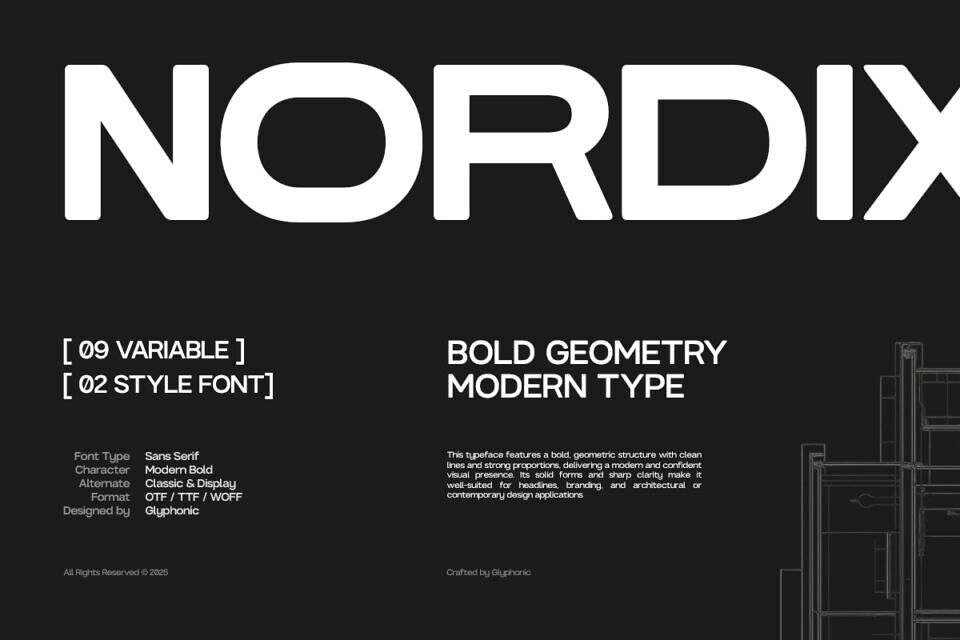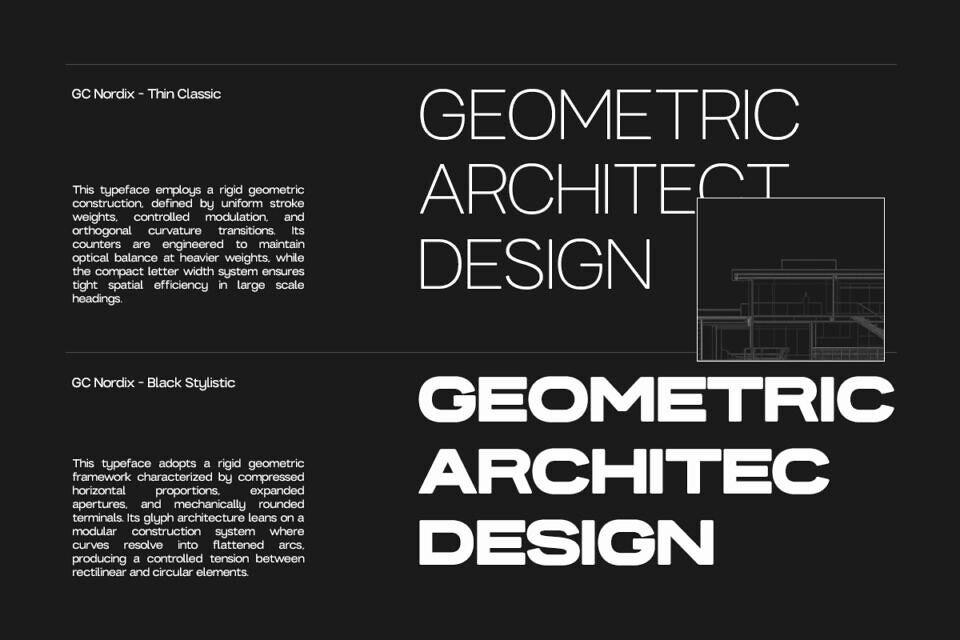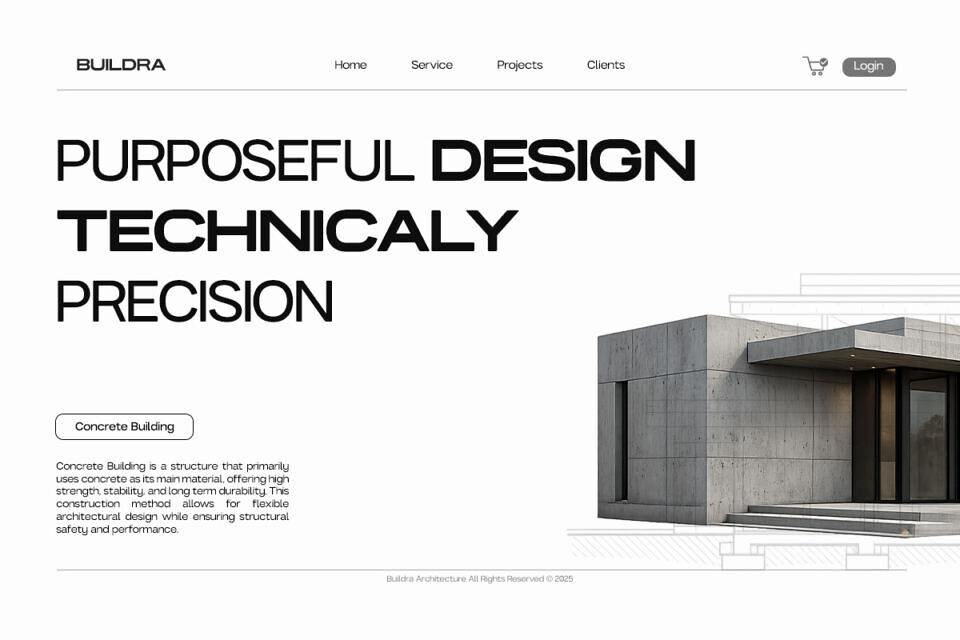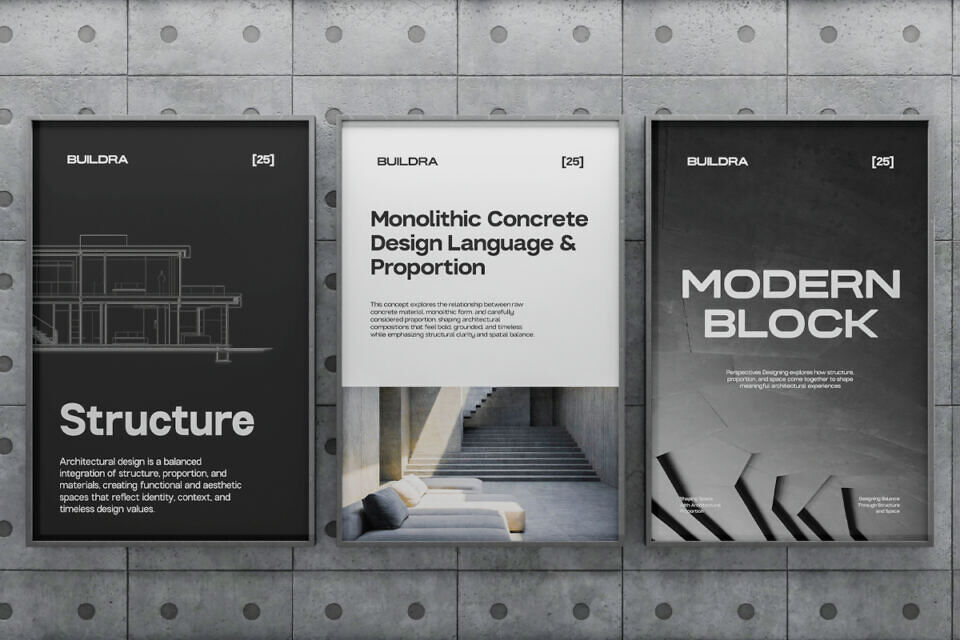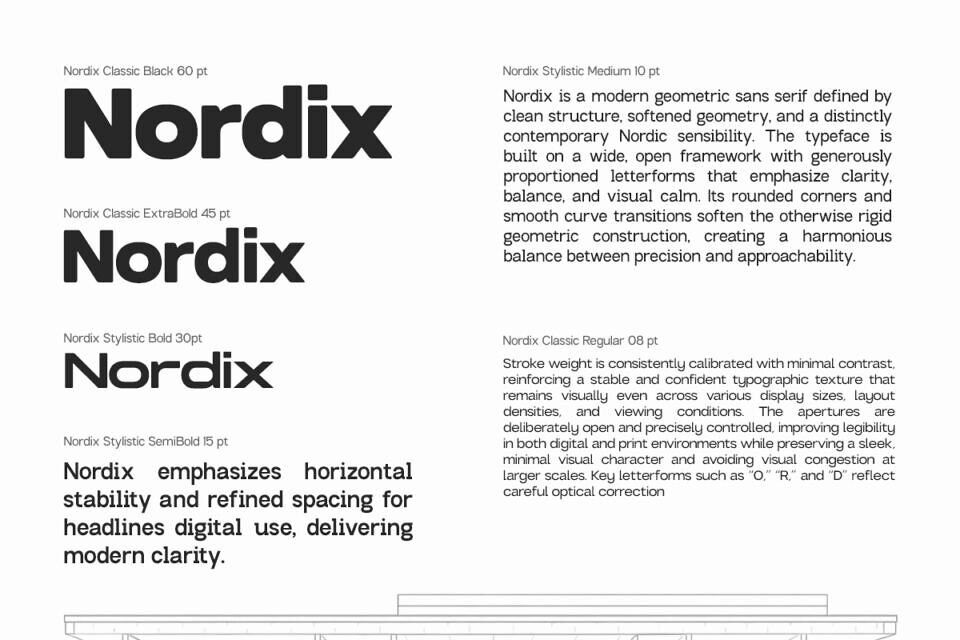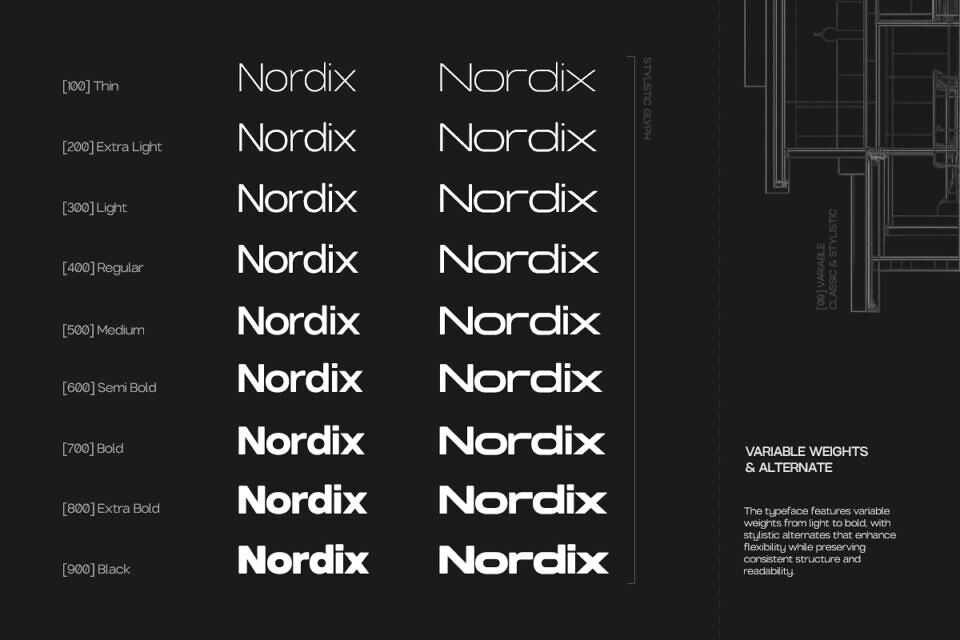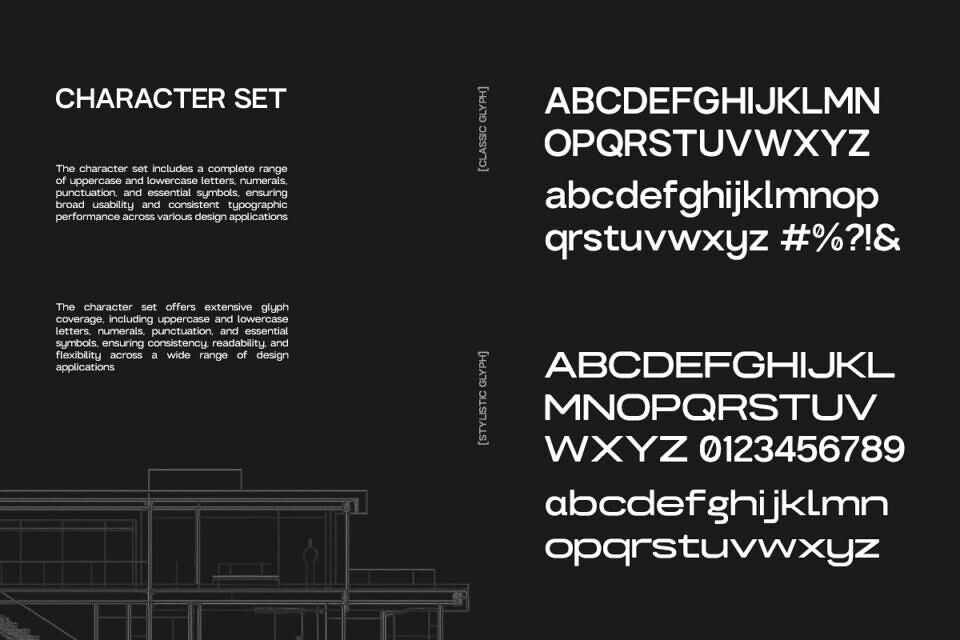
Nordix is a modern sans serif font with a strong geometric base. Its clean design and bold structure make it perfect for contemporary visual communication. With rounded edges and balanced forms, Nordix works well in digital and print media, ideal for headlines, modern architectural, branding, and tech designs.
Nordix brings a modern, geometric touch to designs, making it suitable for a range of applications, from striking headlines to minimalist posters.